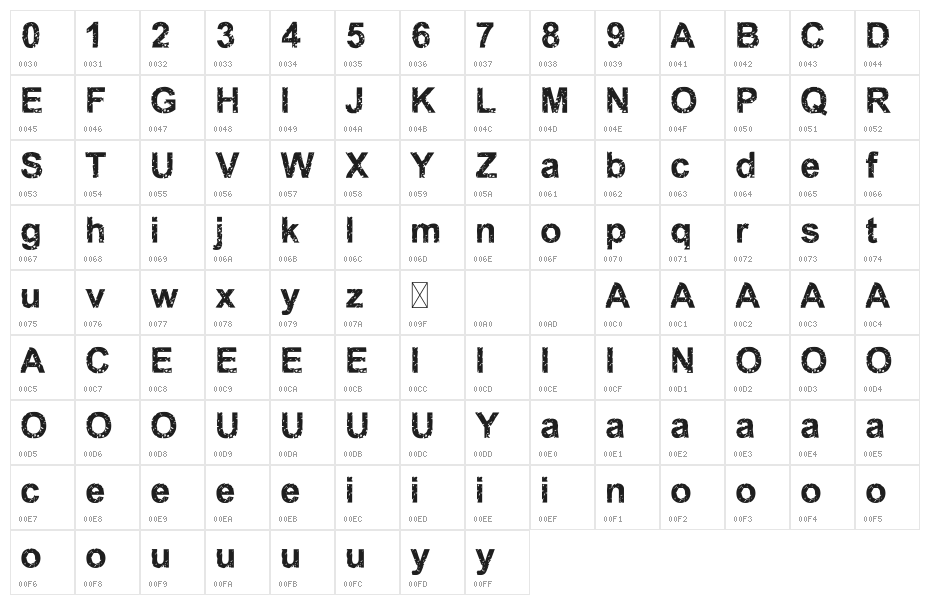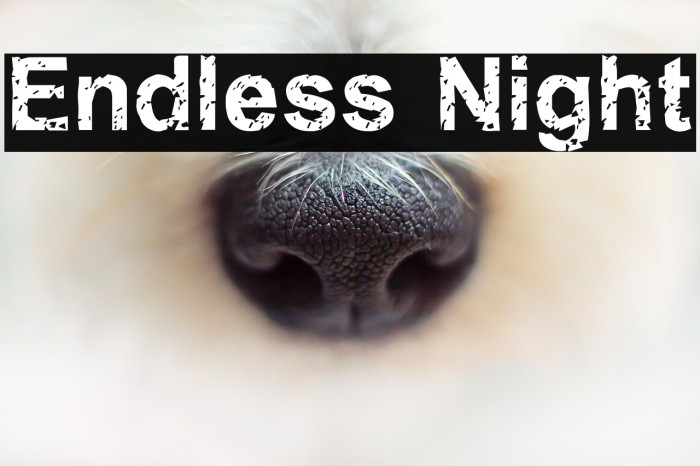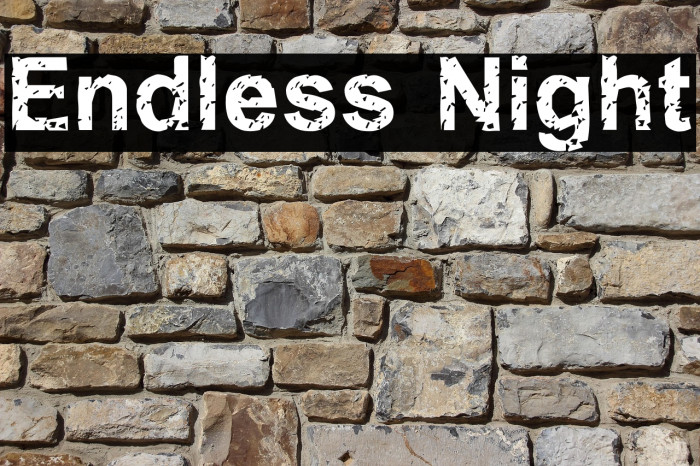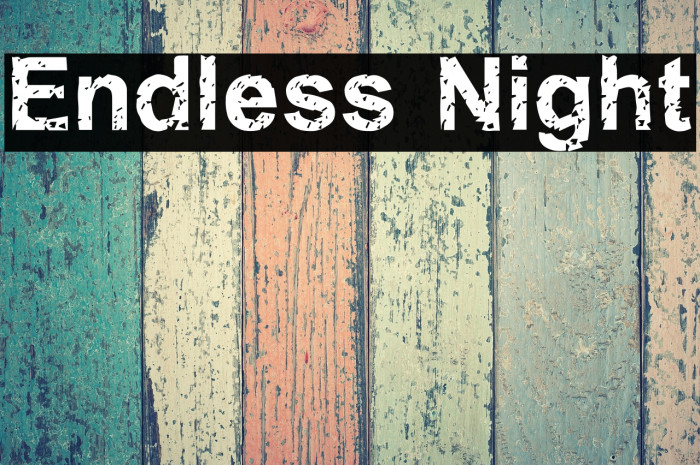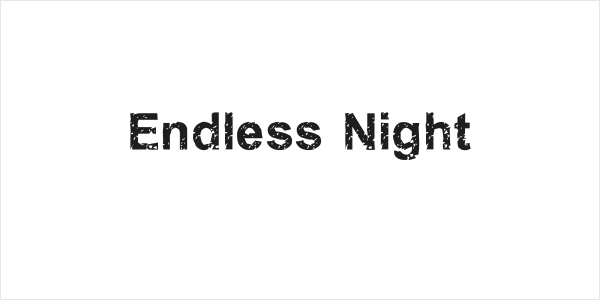
Endless Night Font
| Style général | Grunge, Urban, Vintage |
| Cas d'utilisation | Logos, Posters, Album covers |
| Projets proposés | Ideal for music album covers, urban-themed posters, graffiti art, and edgy branding projects. |